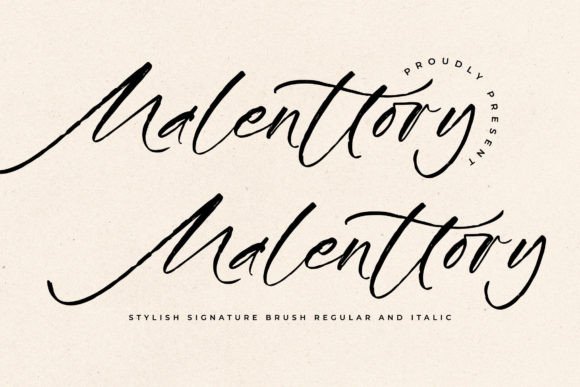
Dive into the world of Malenttory, a captivating script font that will transform your creative visions into masterpieces. Step into a realm where elegance and charm intertwine, where every word you type dances with grace and allure. Designed meticulously by Glorytype Studio, Malenttory is the epitome of artistry, tailored to elevate your projects to new heights.
With Malenttory's enchanting strokes, your website headers will radiate a magnetic pull, drawing visitors into your digital haven. Its carefully crafted curves and flourishes add a touch of sophistication, making every click an experience to savor. Unleash your creativity and watch as Malenttory weaves its magic, captivating your audience from the very first glance.
Beyond website headers, Malenttory's versatility knows no bounds. Let your imagination soar as you incorporate it into logos, branding projects, and homeware designs. Picture your brand identity adorned with Malenttory's timeless charm, leaving an indelible impression on all who encounter it. Craft enchanting product packaging that tells a story of elegance and exclusivity.
Envision your quotes and posters transformed into works of art, with Malenttory's graceful letters dancing across the page. Create shopping bags and t-shirts that exude individuality and style. Imagine your book covers adorned with Malenttory's intricate details, inviting readers to embark on a literary journey like no other.
From name cards and invitation cards to greeting cards and labels, Malenttory adds a touch of sophistication to every creation. Whether you're capturing life's special moments through photography or adding a personal touch to your branding, Malenttory is your steadfast companion. Its versatile nature allows you to seamlessly integrate it into any project, ensuring a cohesive and visually stunning outcome.
With Malenttory, you're not just downloading a font; you're embarking on a creative odyssey, where your ideas take center stage. Its stunning aesthetics and endless applications make it the perfect choice for those seeking to leave a lasting impression.
Join the ranks of creative visionaries who have embraced Malenttory's allure. Let your projects blossom with elegance and captivate your audience with every stroke. Embrace the power of Malenttory and witness the transformation of your creative endeavors into masterpieces.